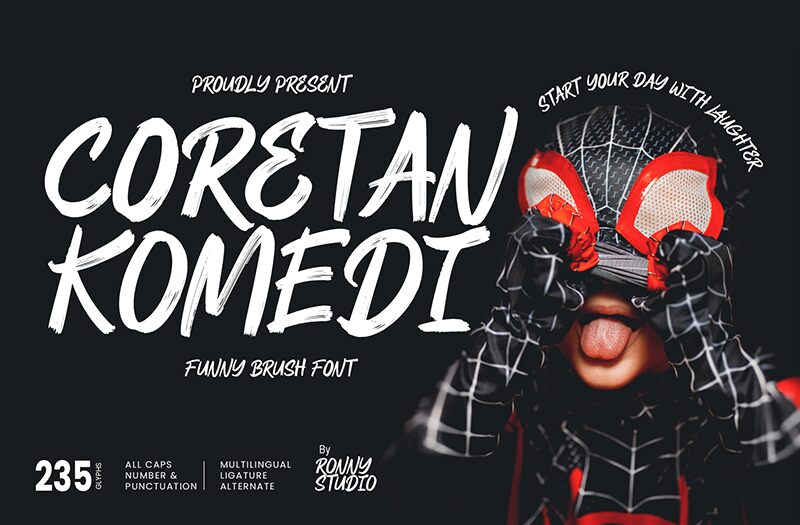
Coretan Komedi font by Ronny Studio is a free brush typeface with an expressive, engaging presence. The letters have a general modern urban character influenced by graffiti styling. This gives it an energetic and bold casual appeal along with top-notch readability.
Coretan Komedi suits logos, posters, blog titles, packaging designs, fashion website headings, advertisement banners, and more. This free font is also suitable for album art covers and music concert flyers. Overall, any project inspired by street art or urban lifestyle can benefit from this tool.